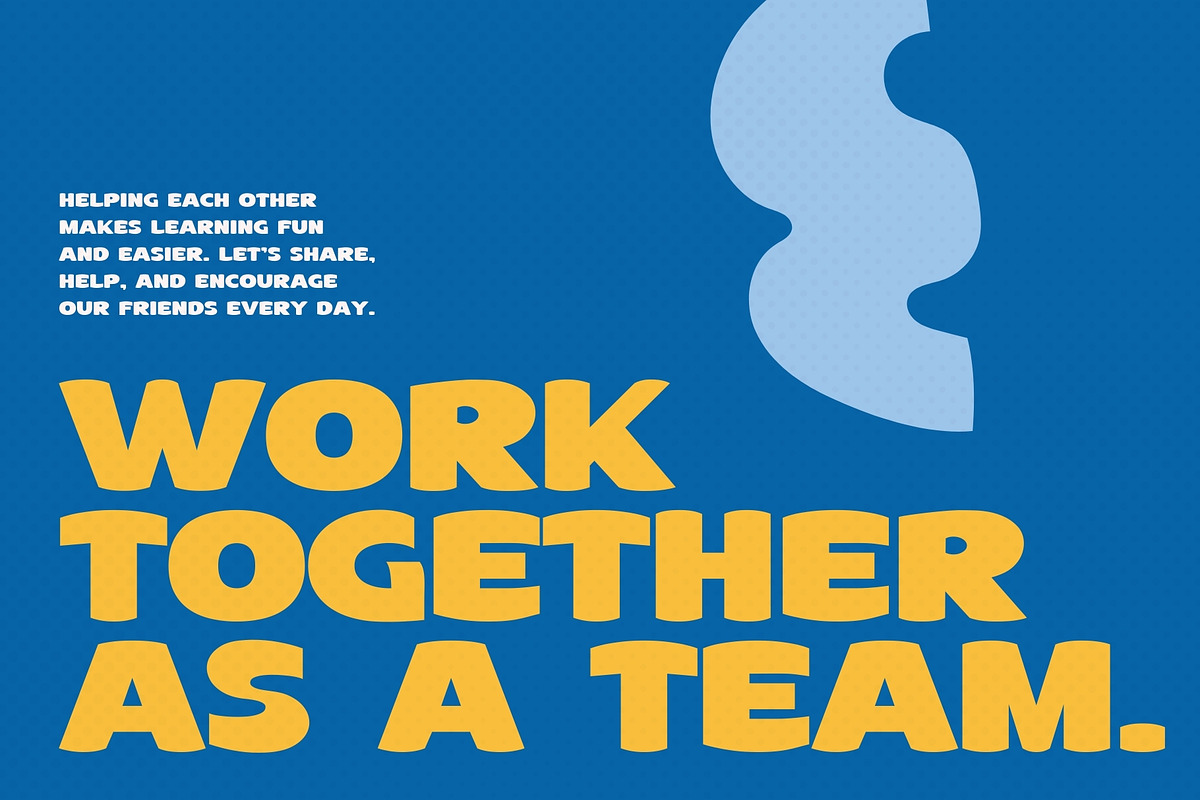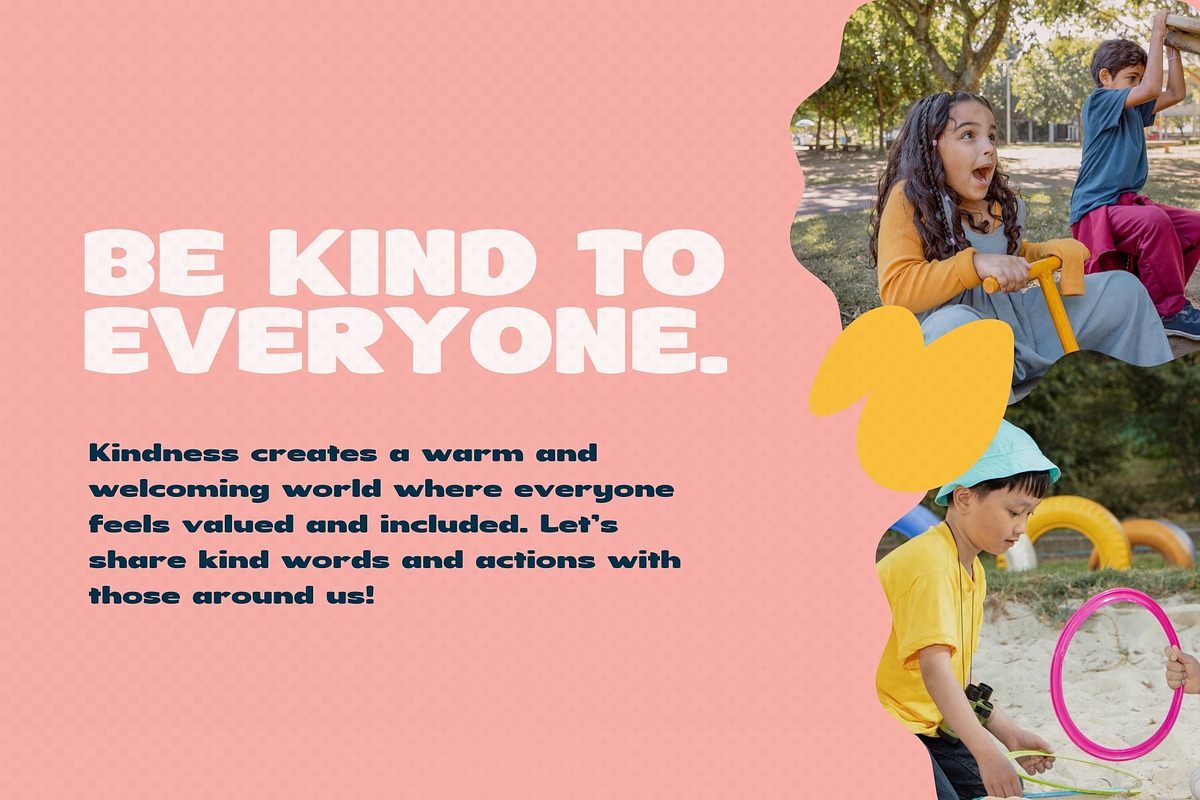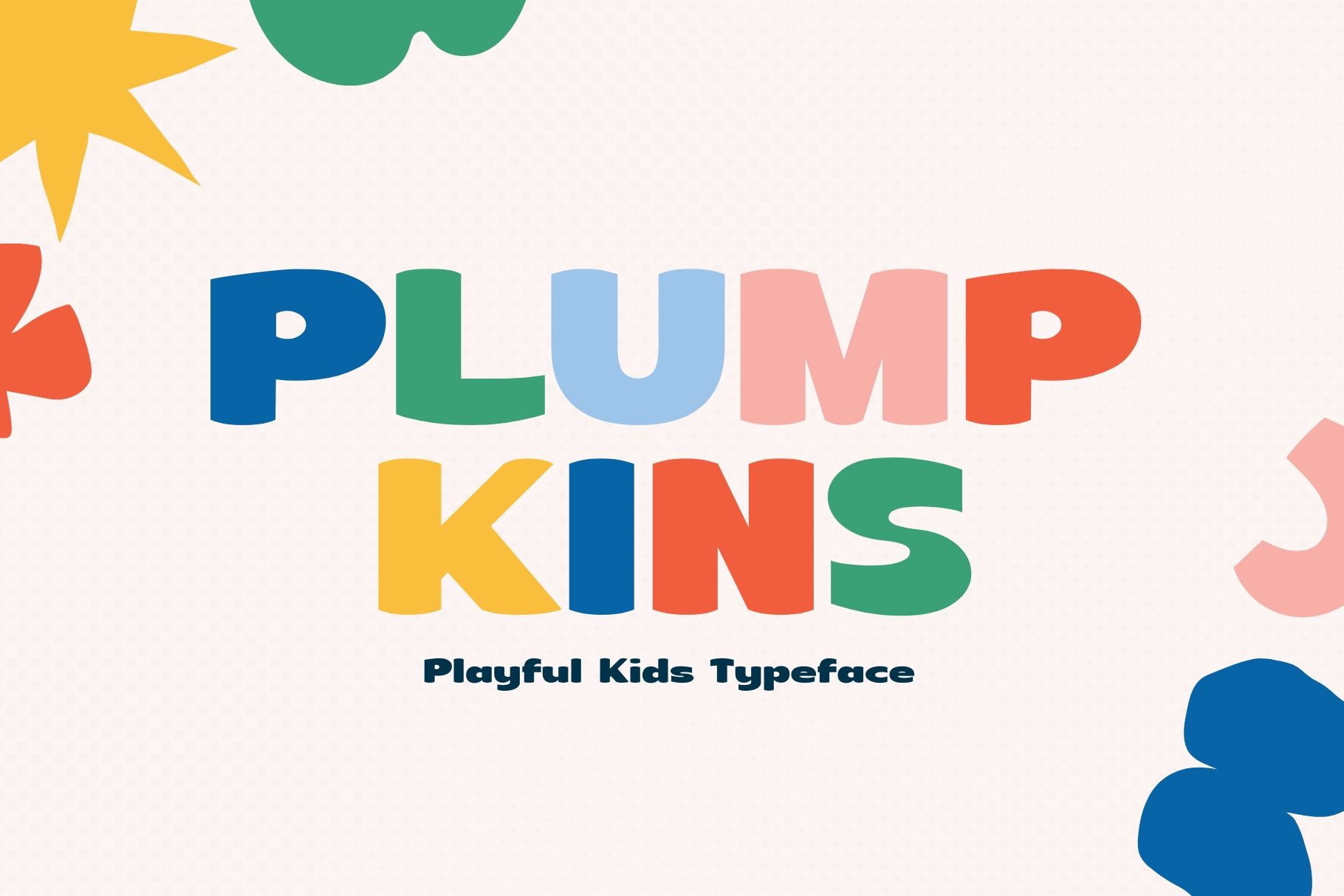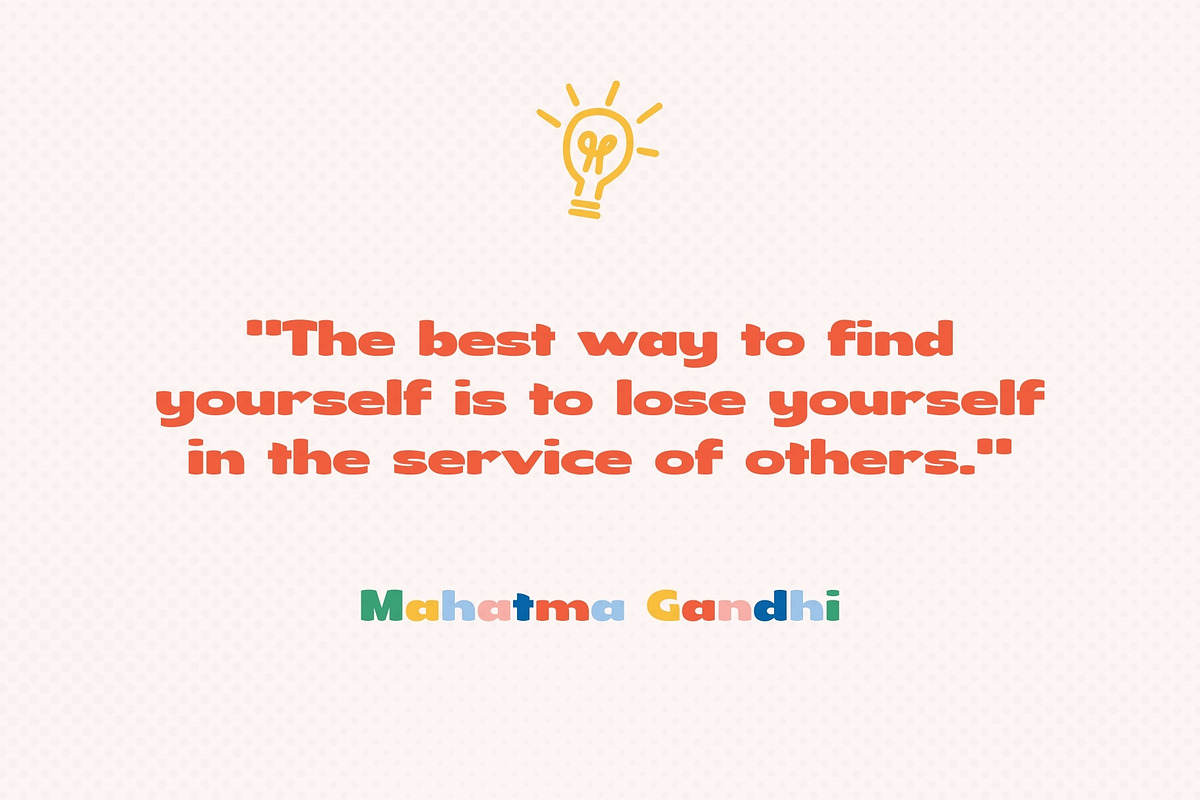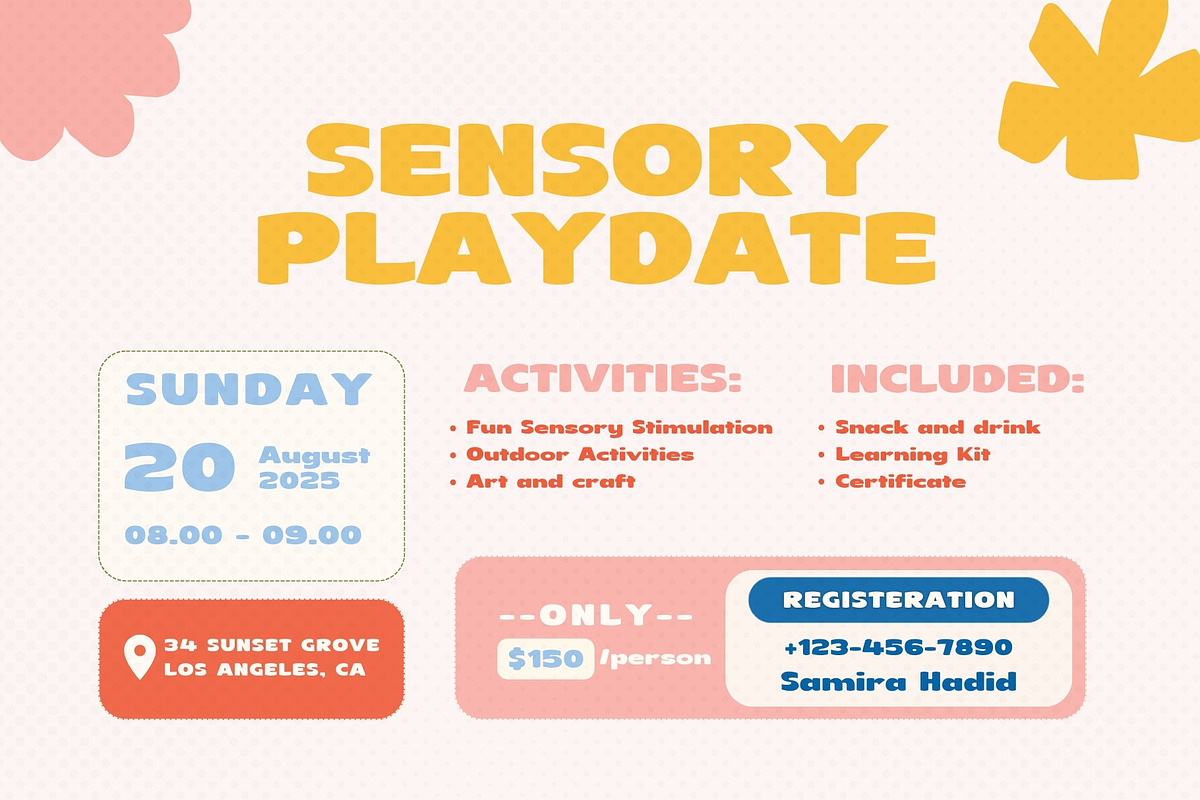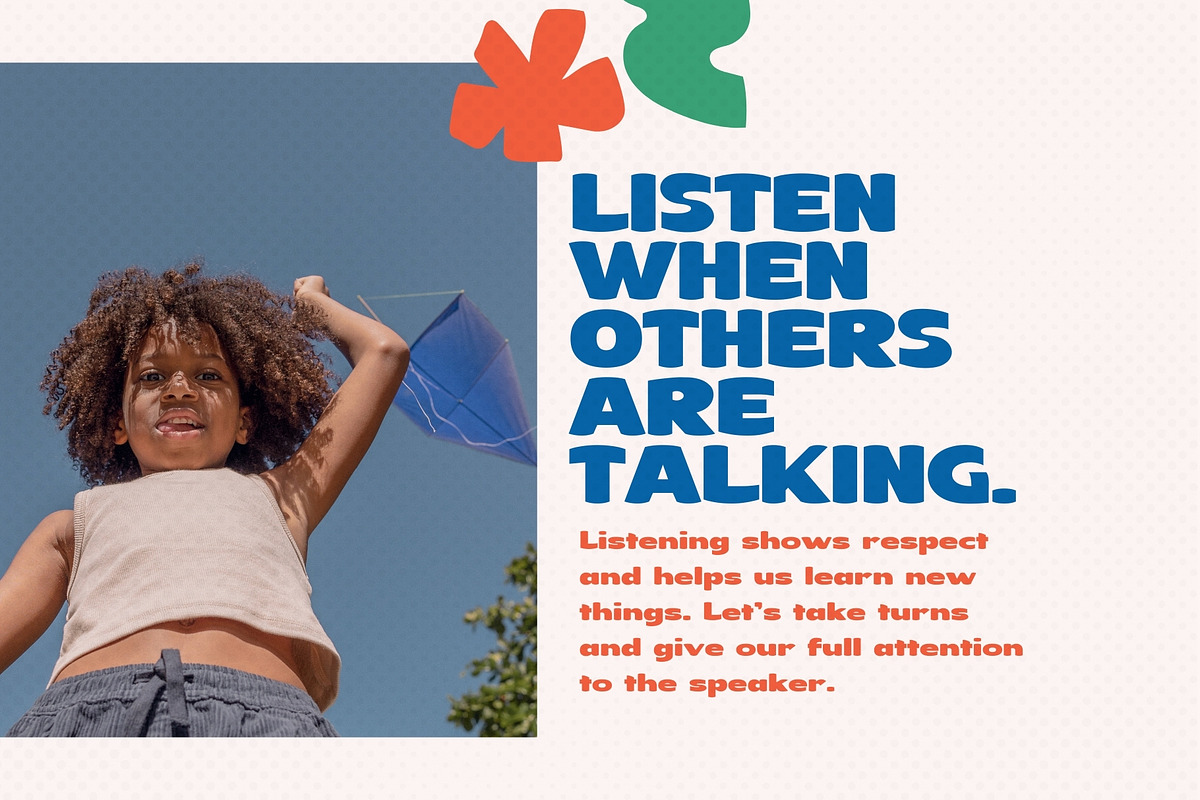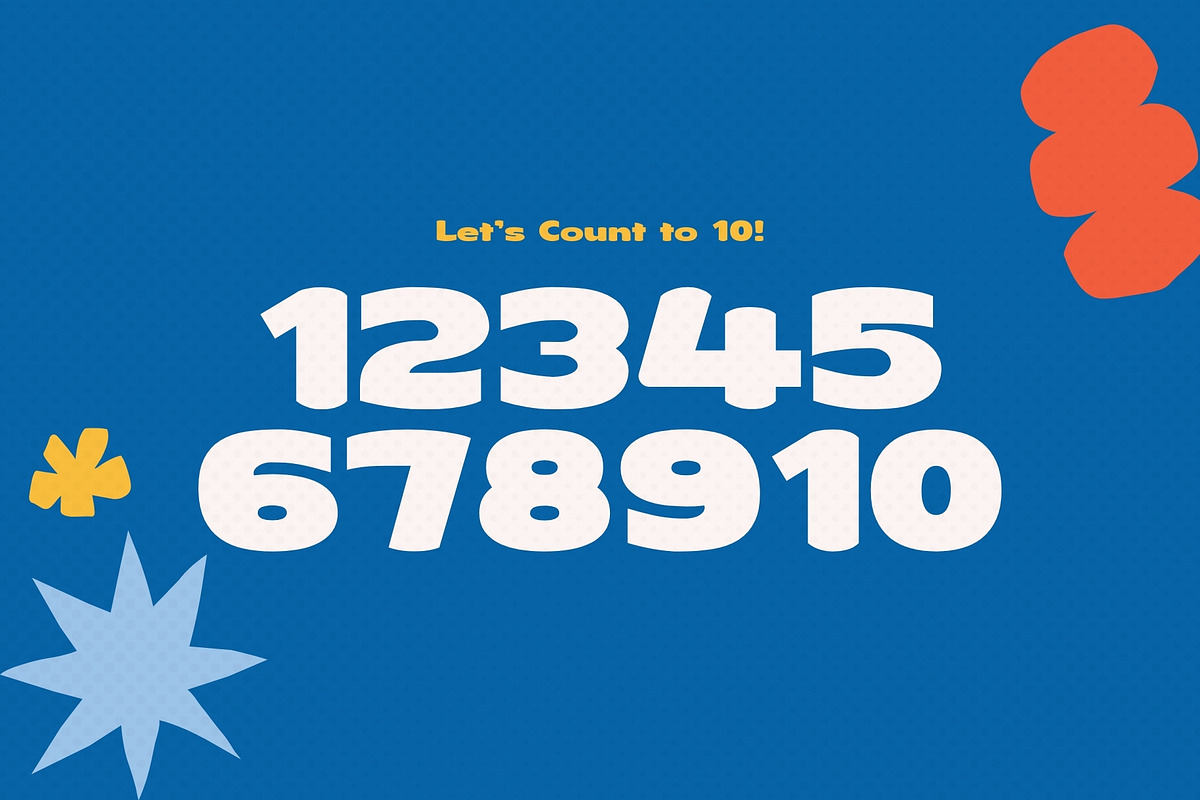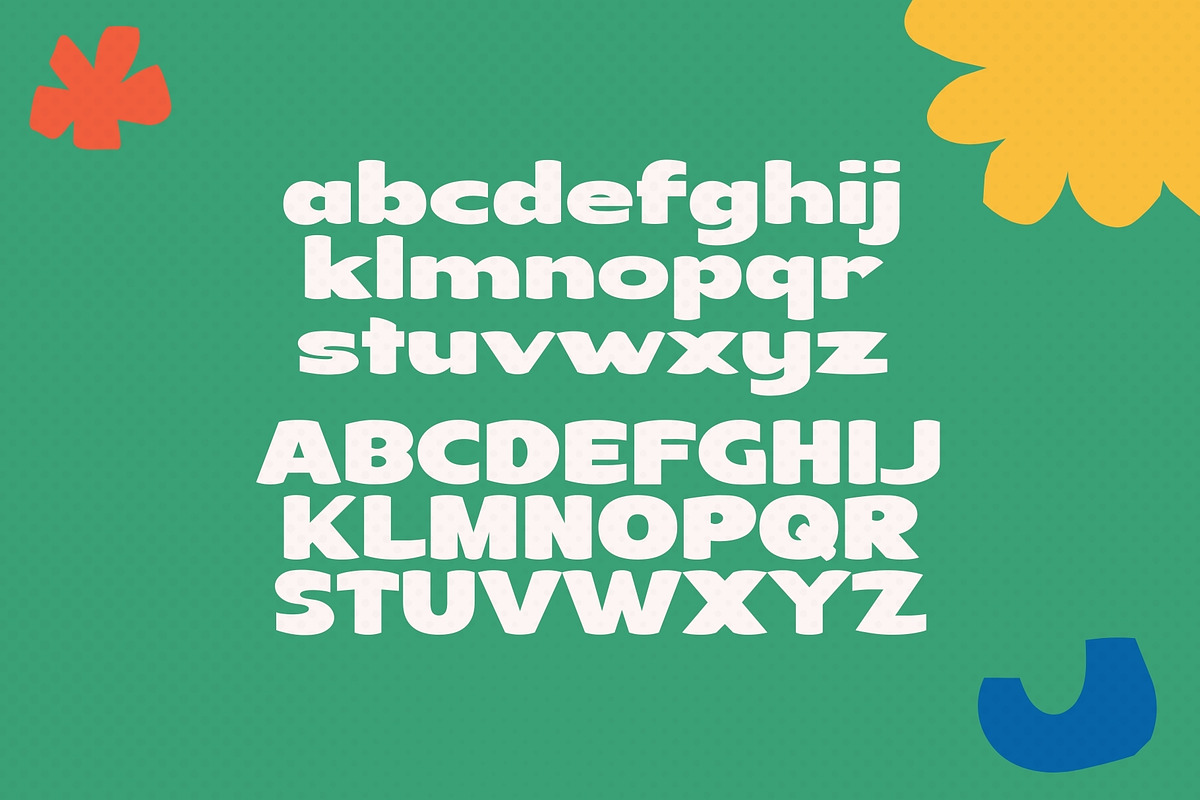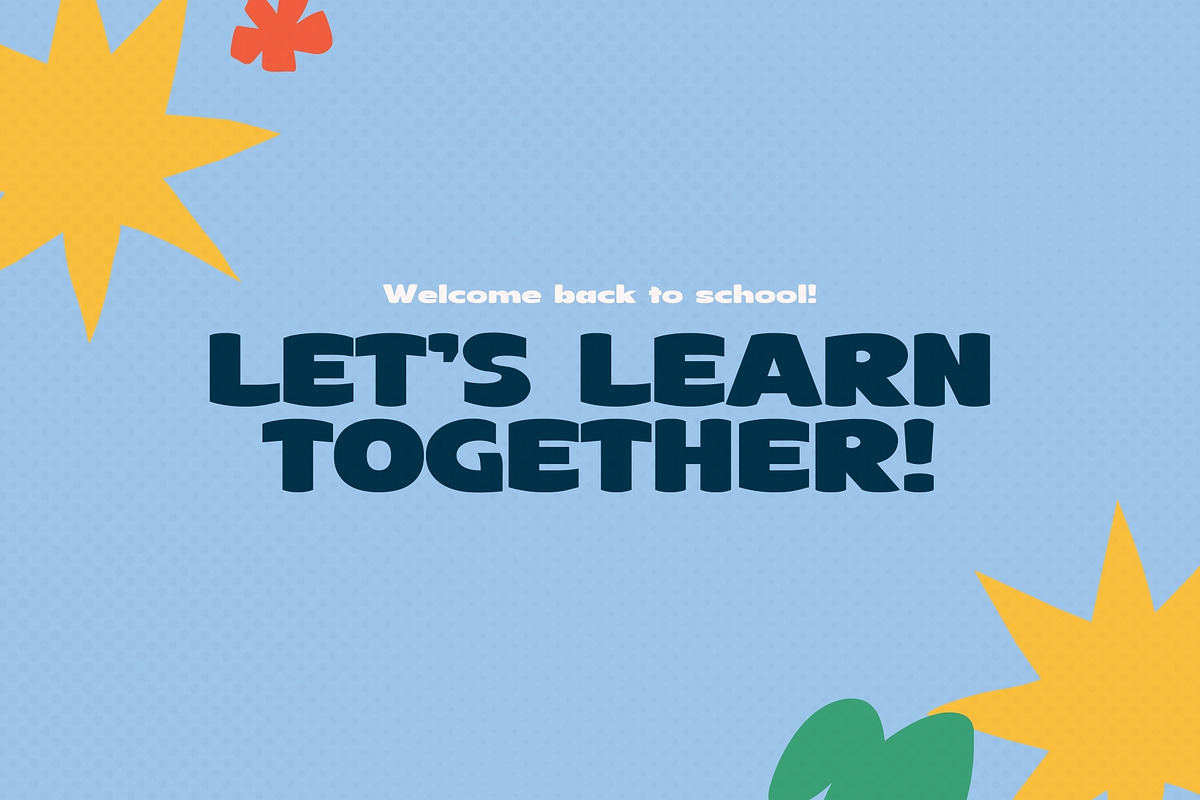
Plumpkins - Playful Kids Typeface
Introducing Plumpkins, the ultimate playful sans-serif typeface designed to bring joy, fun, and friendliness to any project! As the name suggests, Plumpkins is big, bold, and plump, making it the perfect choice for kids' designs, storybooks, educational materials, playful branding, and more.
With its soft, rounded edges and bouncy personality, Plumpkins radiates warmth and approachability, making every word feel like a hug! Whether you're creating a cheerful poster, a fun logo, or an engaging children's book cover, this typeface will add a delightful touch of charm and excitement.
- Playful, plump, and friendly design
- Bold and easy-to-read letterforms
- Perfect for kids' projects, branding, and storytelling
- Sans-serif with a fun, modern twist
Let your creativity shine with Plumpkins – where every letter is bursting with fun!